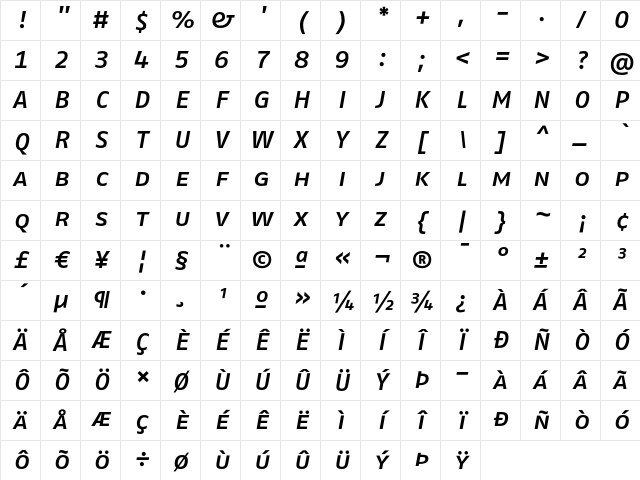
FagoExTf MediumItalicCaps
Style: MediumItalicCaps
Design Context for FagoExTf
FagoExTf is a composed and adaptable typeface that performs quietly and consistently across a wide range of design contexts. The slanted form adds forward momentum and visual energy.
Pro Tip: Use FagoExTf for emphasis, pull quotes, and subheadings where its slanted energy can add rhythm to the layout.